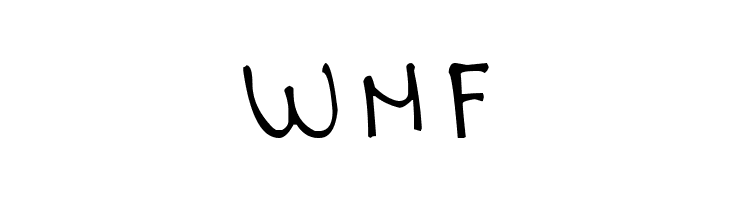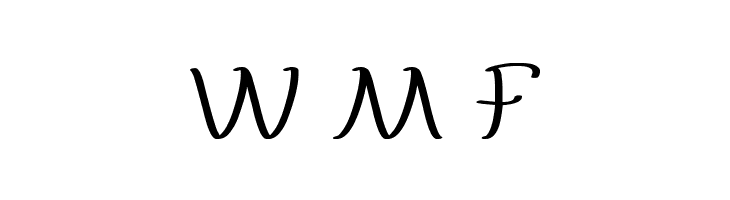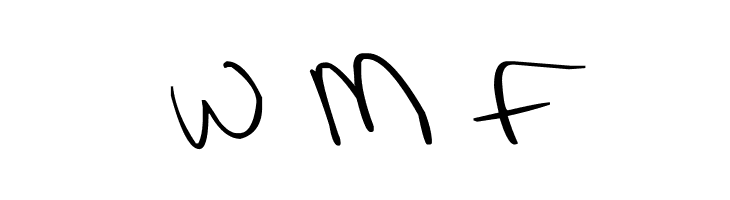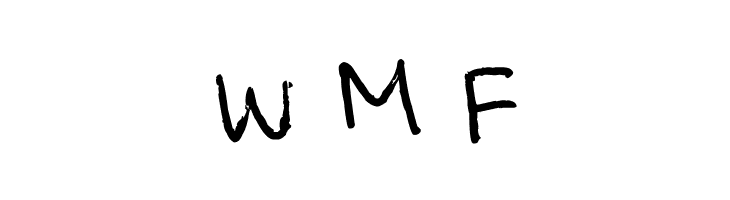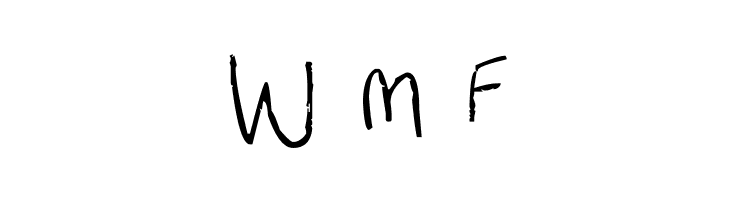
A bold, expressive handwritten font with dynamic strokes and a casual feel.
A whimsical, star-adorned decorative font with thin lines and playful design.
A whimsical and decorative font with intricate curly patterns.
A sketch-like, hand-drawn font with bold outlines and a playful style.
A geometric and angular font with intersecting lines, offering a modern and artistic look.
A playful, hand-drawn font with bold, rounded characters and a whimsical style.
A bold, hand-drawn font with textured, playful characters.
A playful, handwritten font with dynamic, flowing strokes.
A bold, playful, hand-drawn font with dynamic and irregular characters.
A playful, bone-themed decorative font perfect for spooky designs.
A playful, bold font with uppercase letters in hand-drawn circles.
A bold, jagged font with sharp angles and an edgy, dynamic appearance.
A bold, graffiti-inspired font with rough, brush-like strokes.
A casual, handwritten font with a playful and informal style.
A playful, whimsical script font with flowing, cursive letterforms and decorative flourishes.
A playful and casual handwritten font with dynamic strokes.
A playful, handwritten-style font with irregular, dynamic strokes.
A playful, casual handwritten font with fluid, irregular strokes.
A playful, informal handwritten font with dynamic strokes and a whimsical appearance.
A bold, jagged font with a shattered glass effect, perfect for impactful designs.
A decorative, distressed font with jagged edges and a hand-drawn style.
A playful, handwritten font with smooth, consistent strokes.
A playful, hand-drawn font with a whimsical and friendly style.
A casual, handwritten font with varied stroke thickness and a playful appearance.
A playful, handwritten script font with fluid, connected letters and dynamic strokes.
A playful, casual handwritten font with irregular strokes and a whimsical feel.
A bold, angular font with a hand-crafted, artistic style.
A bold, playful font with dynamic curves and a whimsical, hand-drawn style.